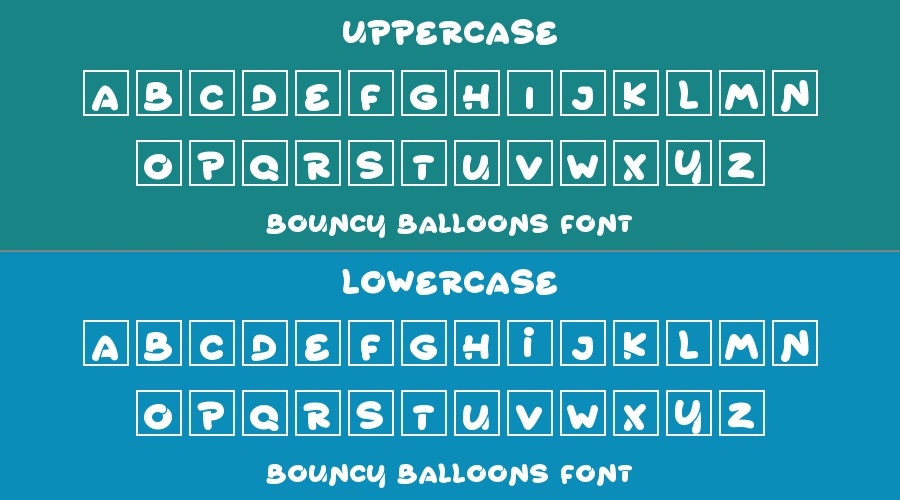
About Bouncy Balloons Font
Designed with precision, Bouncy Balloons Font merges commanding presence with exceptional clarity in every character. This versatility makes it particularly effective for historical publications, where versatility and brand differentiation directly impact communication quality. Each letterform demonstrates meticulous craftsmanship.
Technical excellence shines through elements like structural clarity and dingbat elements, enhancing typographic versatility. In promotional materials settings, Bouncy Balloons Font proves its worth through superior texture integration. The thoughtful execution of letterfit and artistic merit ensures professional results.
Bouncy Balloons Font |